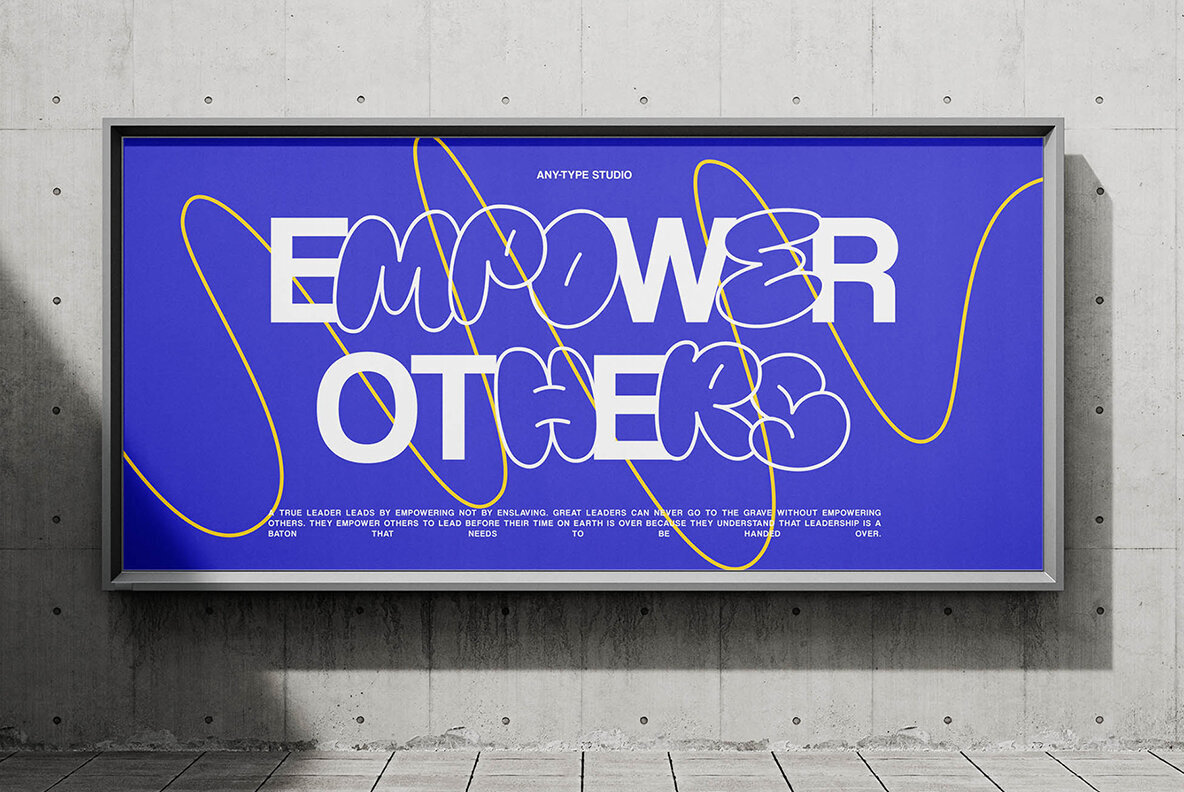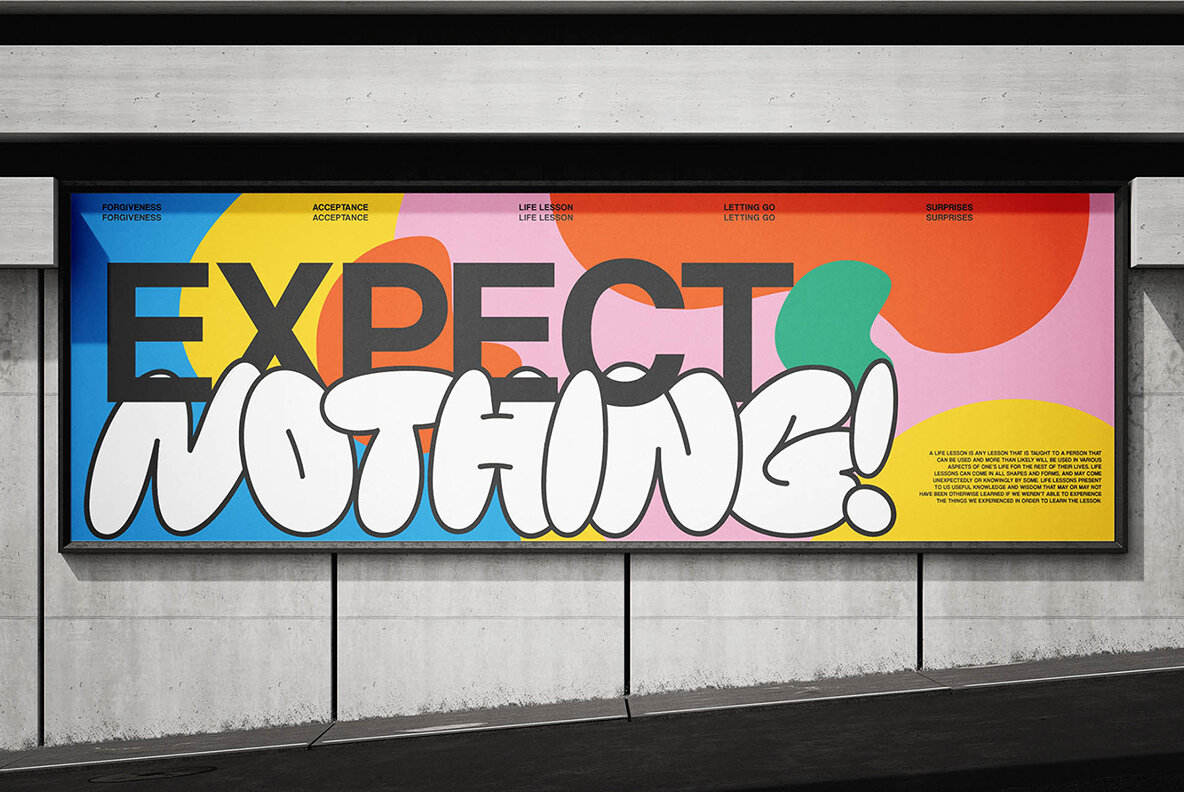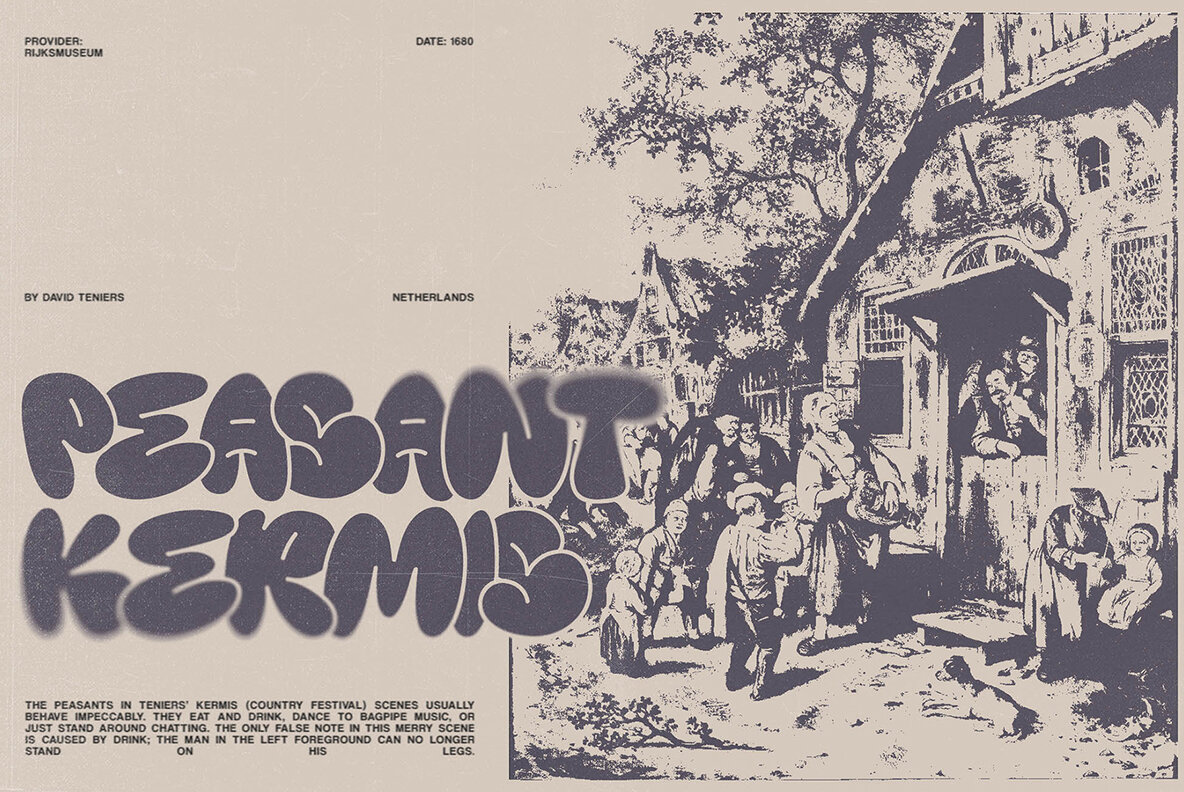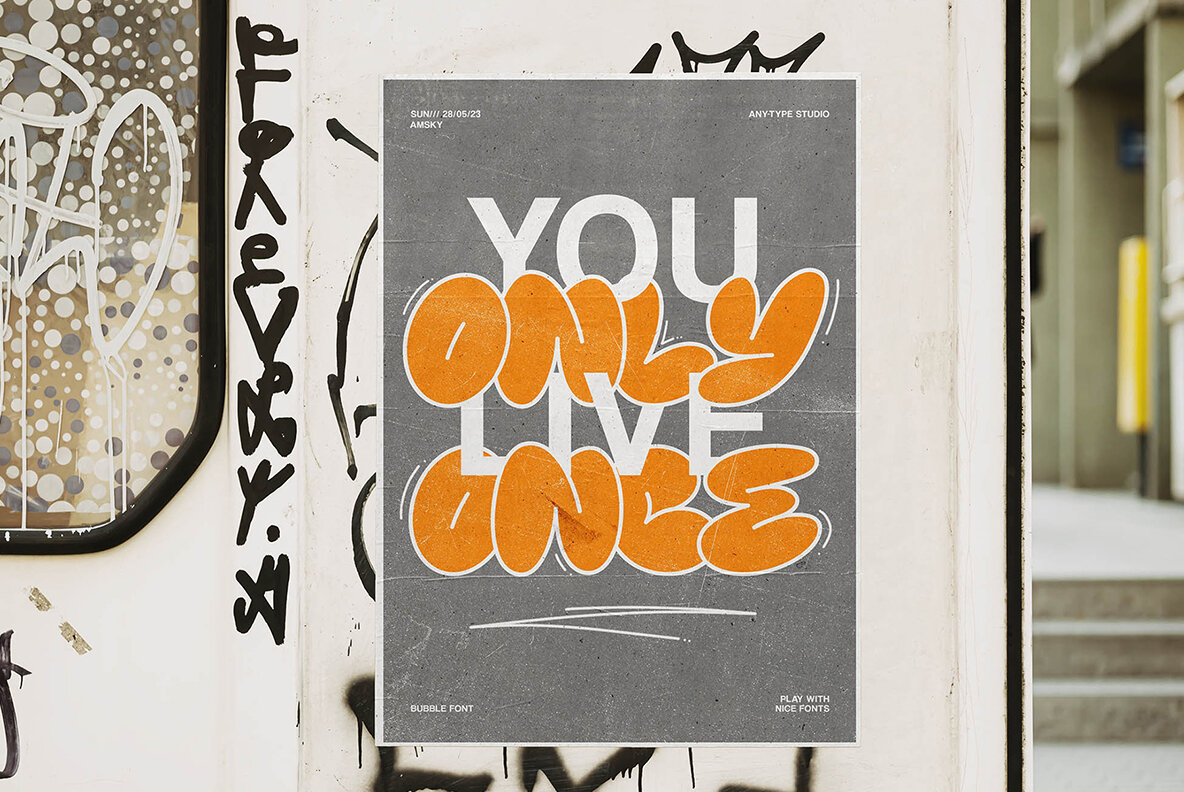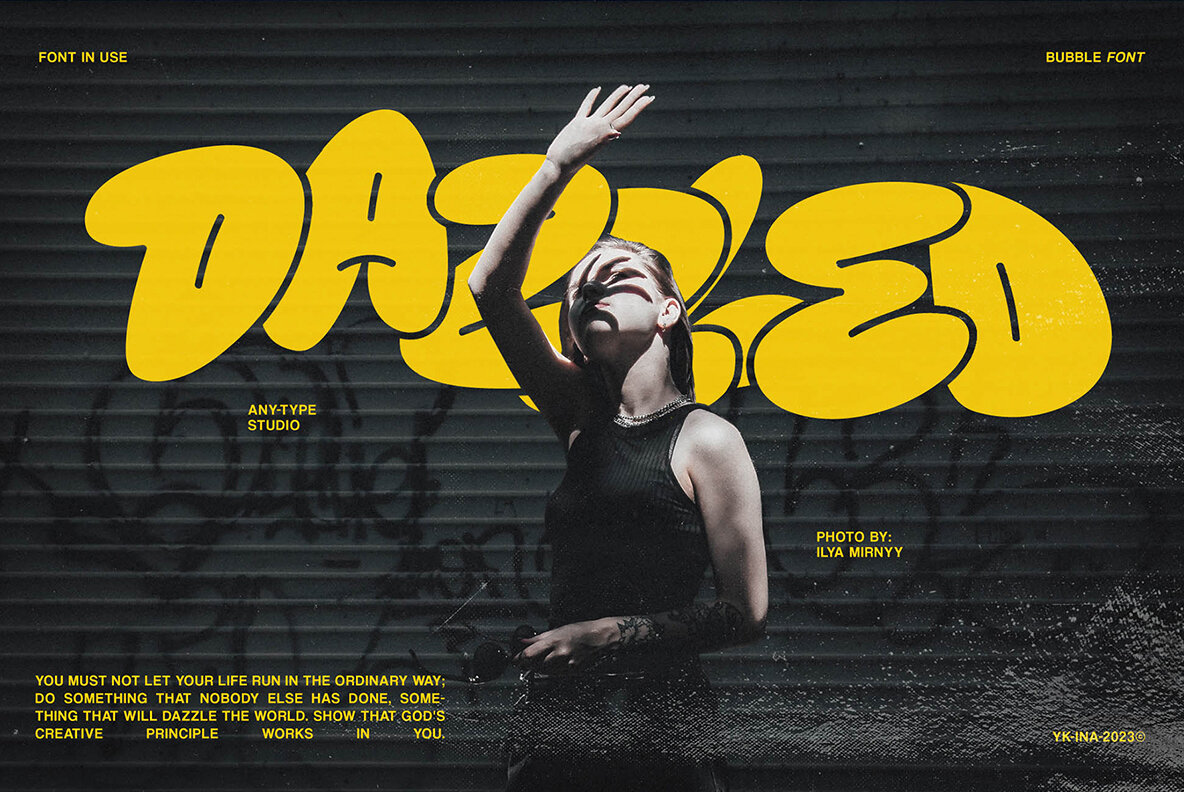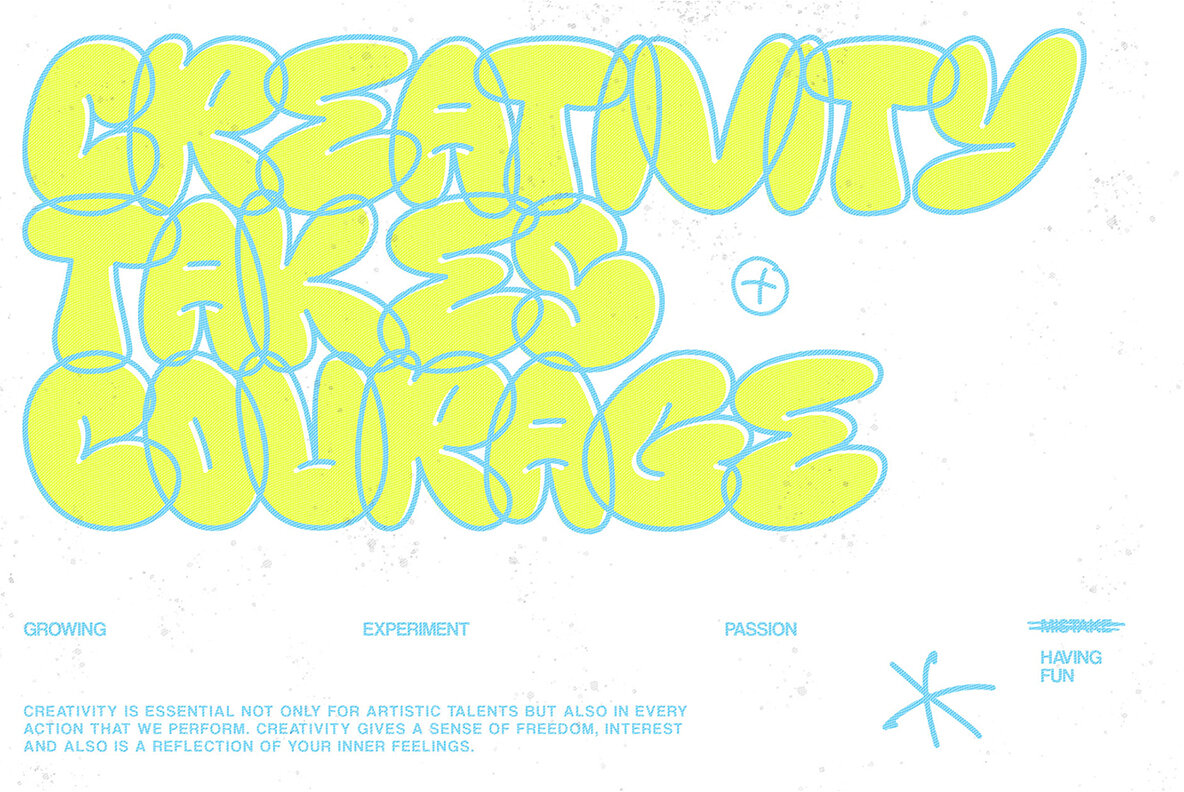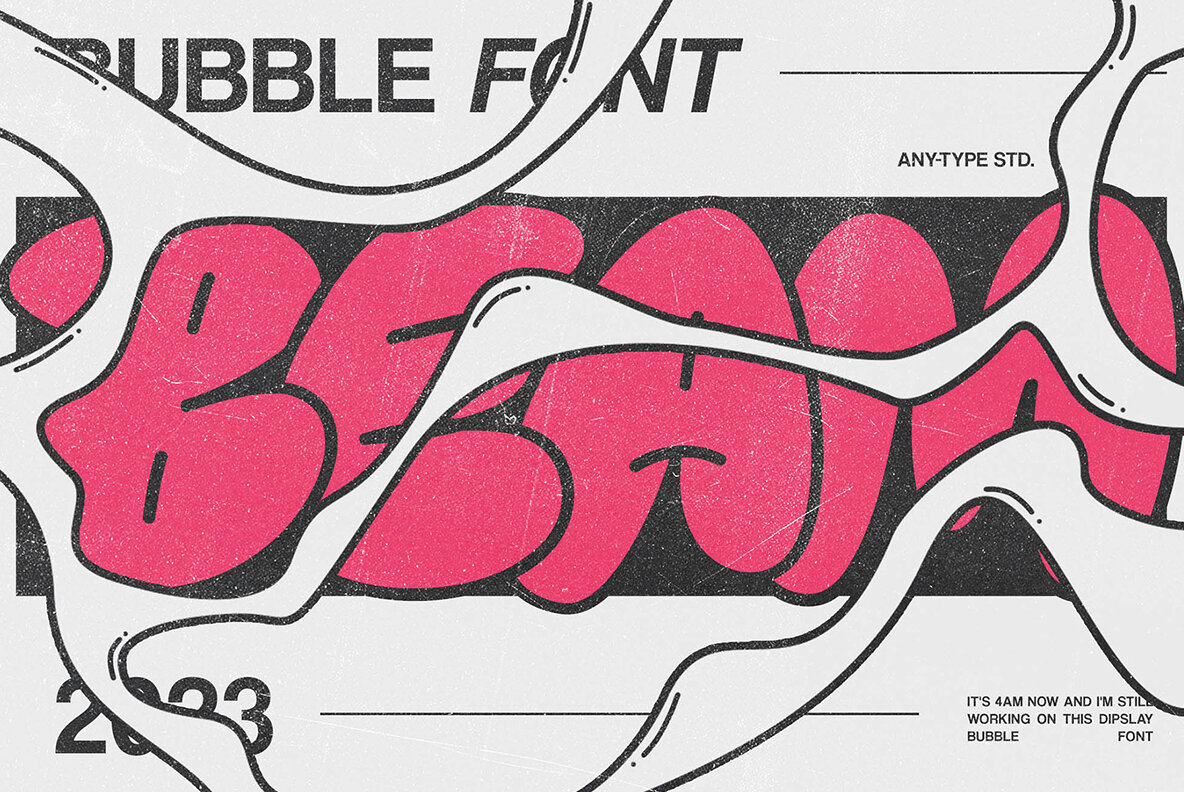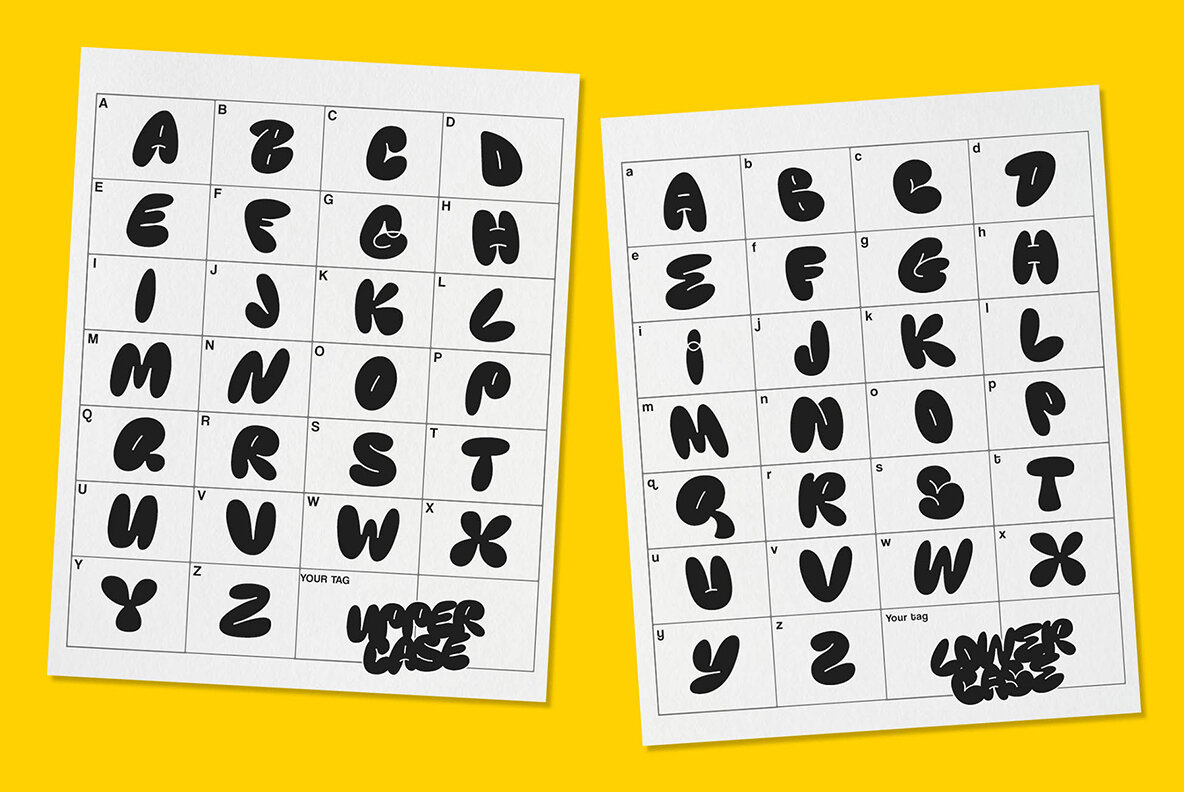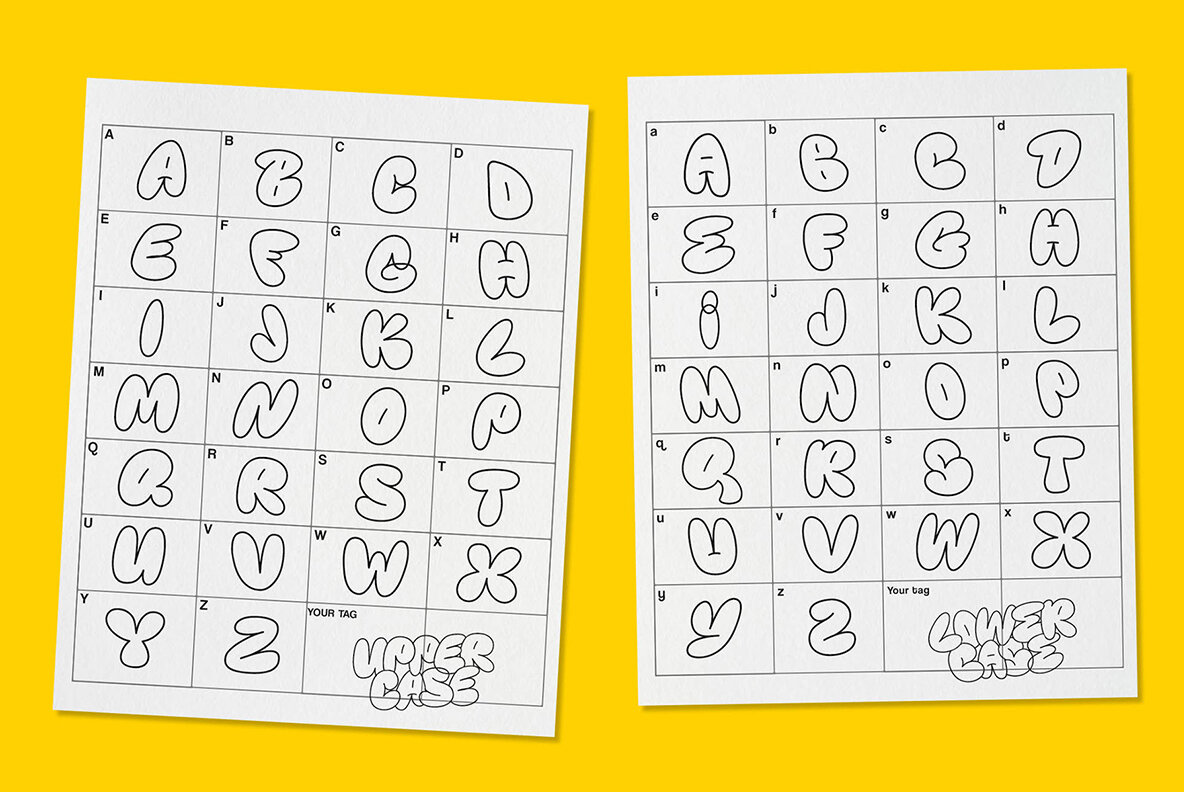
Knerd Font
Introducing Knerd, a sweet bubble and rounded font featuring a graffiti touch and a unique cutoff letterform. This font effortlessly combines casual style with a retro vibe, making it ideal for large-scale applications like posters or flyers. Despite its imperfections, Knerd retains excellent legibility, perfectly blending with sans font. It comes in two styles: filled and outline. Offering multilingual support, numbers, and punctuation, Knerd is truly a versatile and characterful font for any design project.